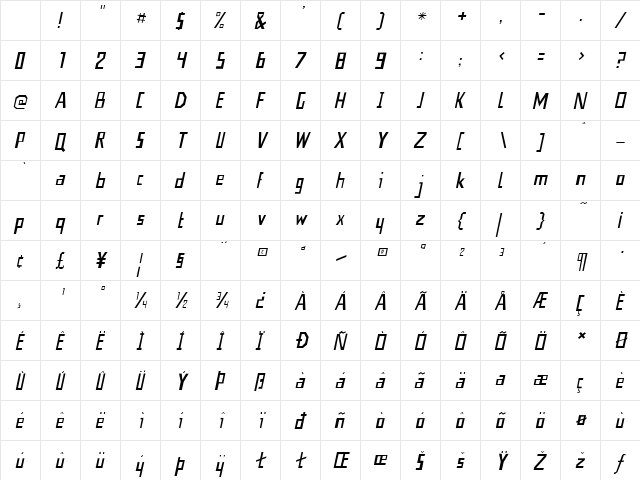
Complete Nevermind Italic glyph index. Displaying only characters natively supported by Nevermind Italic font.
Nevermind is a composed and adaptable typeface that performs quietly and consistently across a wide range of design contexts. The slanted form adds forward momentum and visual energy.
Pro Tip: Use Nevermind for emphasis, pull quotes, and subheadings where its slanted energy can add rhythm to the layout.